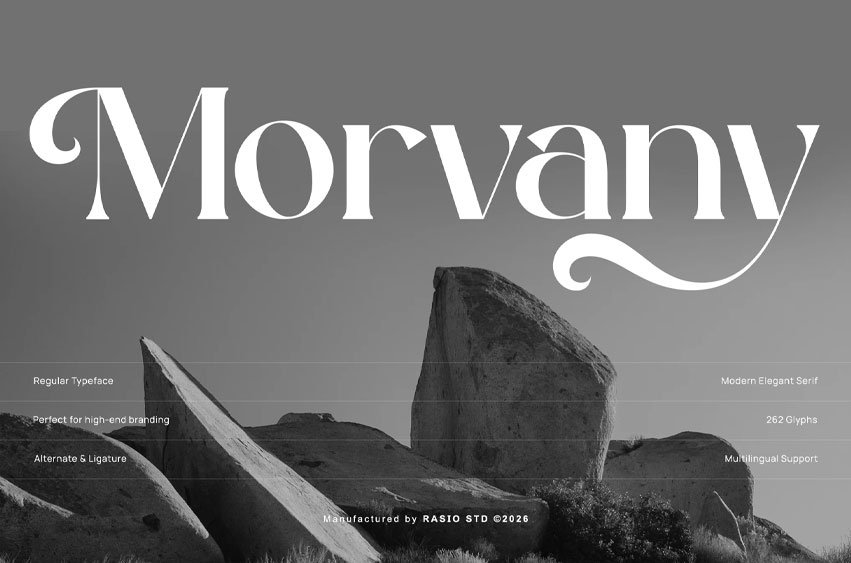
Morvany Font is a modern elegant serif typeface that blends timeless sophistication with contemporary refinement. Designed with high-contrast strokes, graceful curves, and refined serif detailing, this typeface delivers a luxurious yet balanced aesthetic. Morvany is crafted for high-end branding and premium visual identity systems.
Relevance and Use Cases is perfect for luxury branding, fashion labels, beauty products, jewelry brands, boutique packaging, wedding stationery, editorial magazines, high-end logos, hotel branding, and premium marketing materials. Its refined curves and high-contrast structure make it ideal for businesses and designers seeking a sophisticated, timeless, and upscale typographic identity.
Main Features:
- Alternate Support